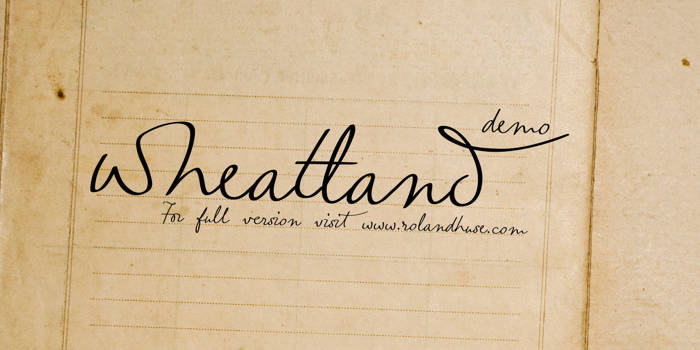
wheatland-demo Font
More info from Roland Huse Design
WHEATLAND-DEMO is a demo version of a handwriting interpretation font. Contains only lowercase and their alternates and connecting pairs for testing purposes so you can try if it works for you.
Clean ans sweet, this script font is beautiful.